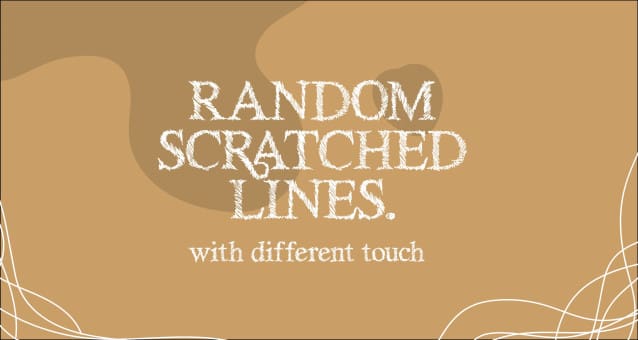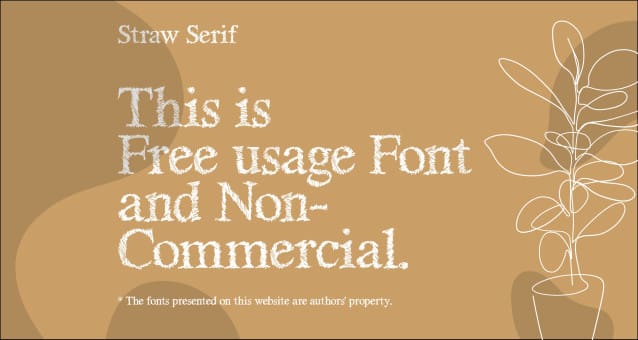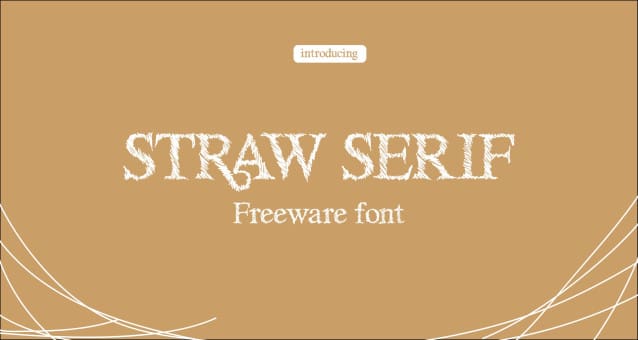
Straw Serif Font
Straw Serif Font is a captivating and distinctive typeface that seamlessly blends modern elegance with timeless sophistication. Crafted with meticulous attention to detail, this font exudes a sense of charm that sets it apart from the ordinary. Its unique serifs are reminiscent of delicate strands, resembling the fine intricacies of straw, adding a touch of rustic allure to its overall aesthetic.